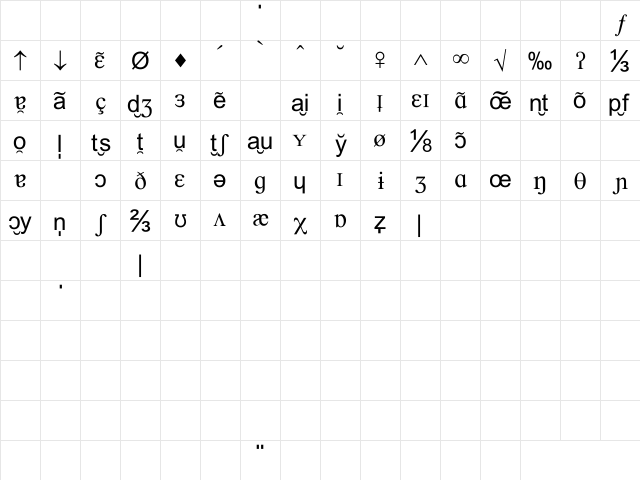
Van Dale 2000 Regular
| Foundry | High-Logic |
| Designer | High-Logic - Erwin Denissen 1999 |
Design Context for Van Dale 2000 Typeface
Van Dale 2000 offers clean, dependable letterforms without strong stylistic allegiance, making it a practical choice for designers who need flexibility.